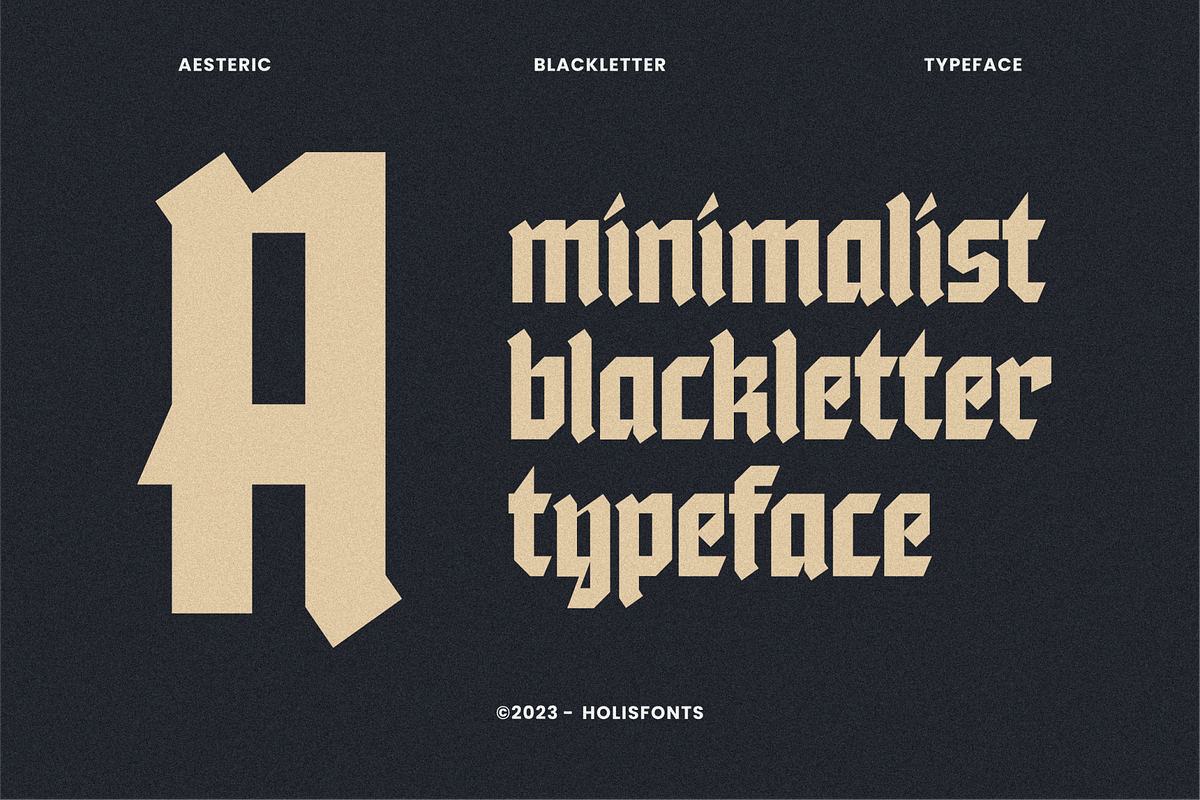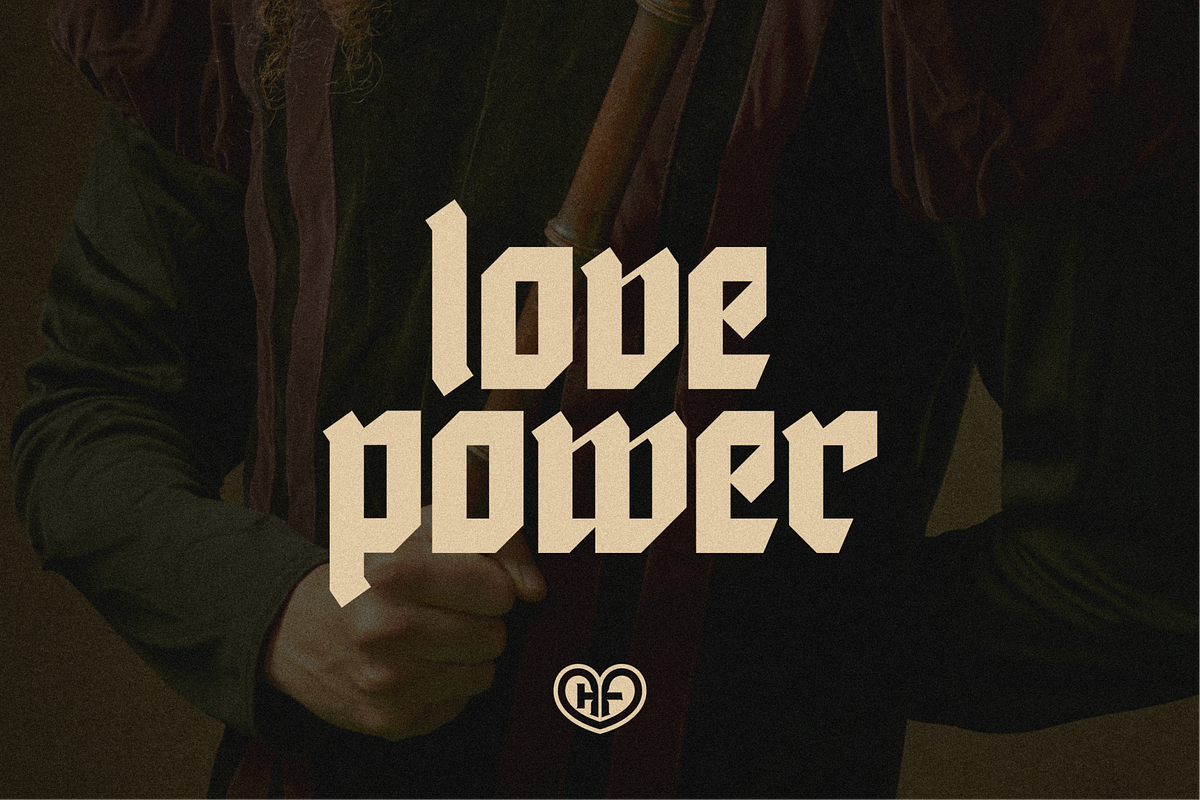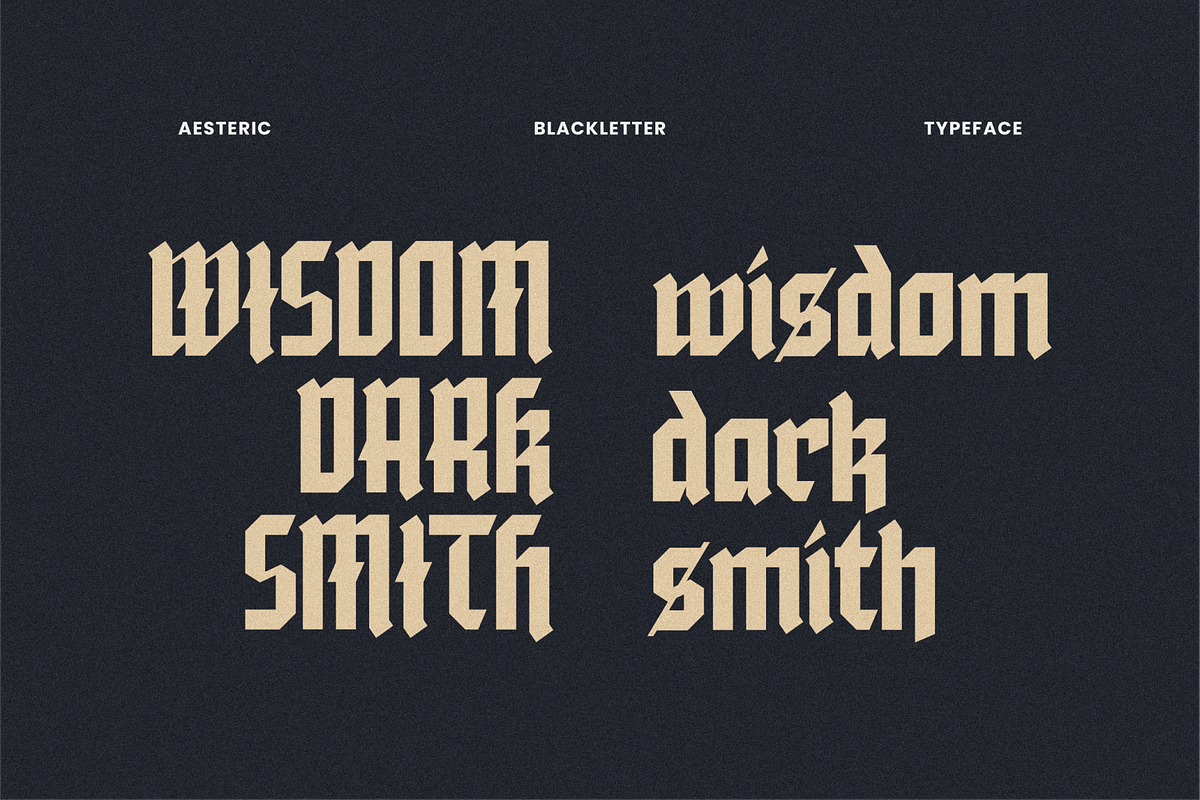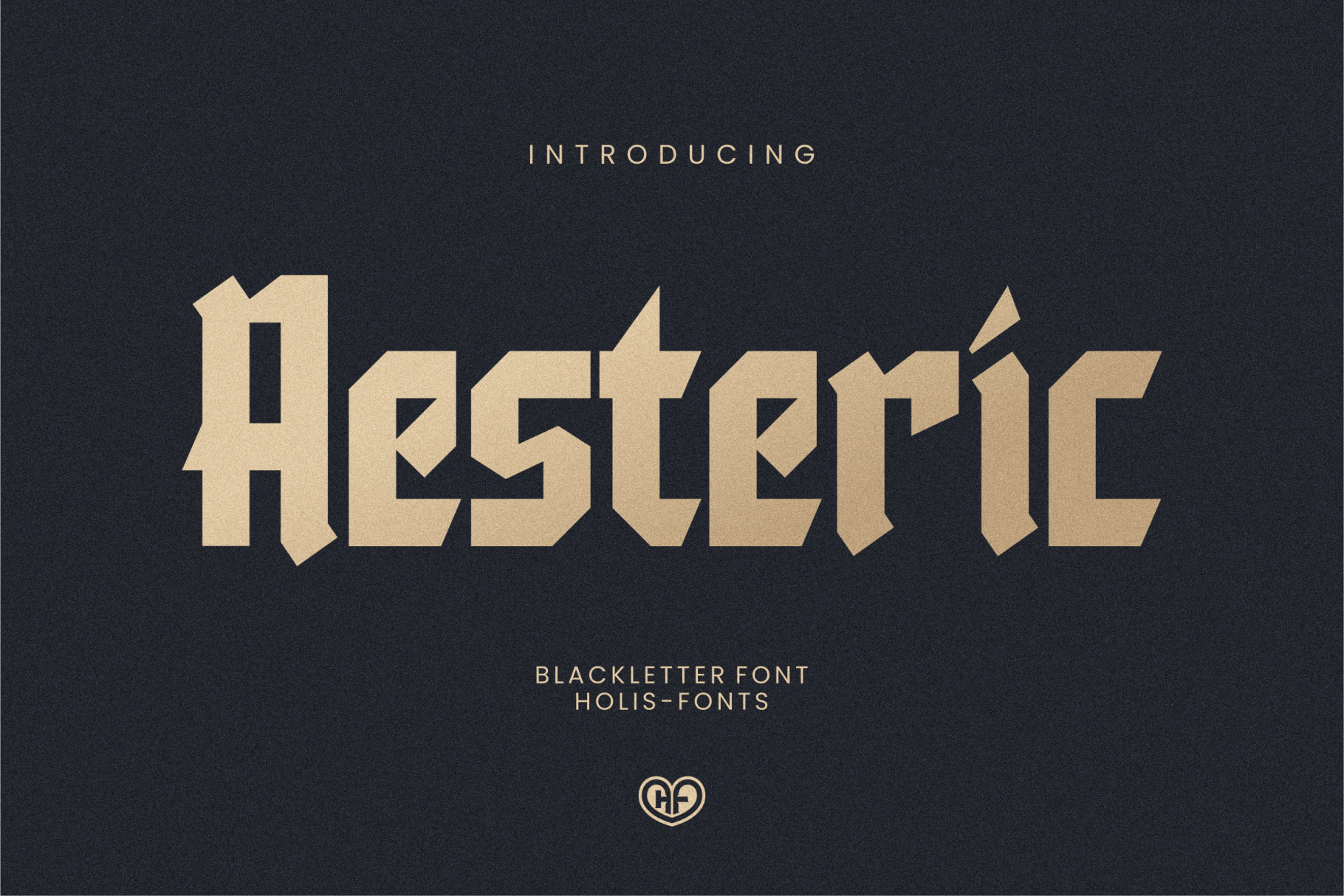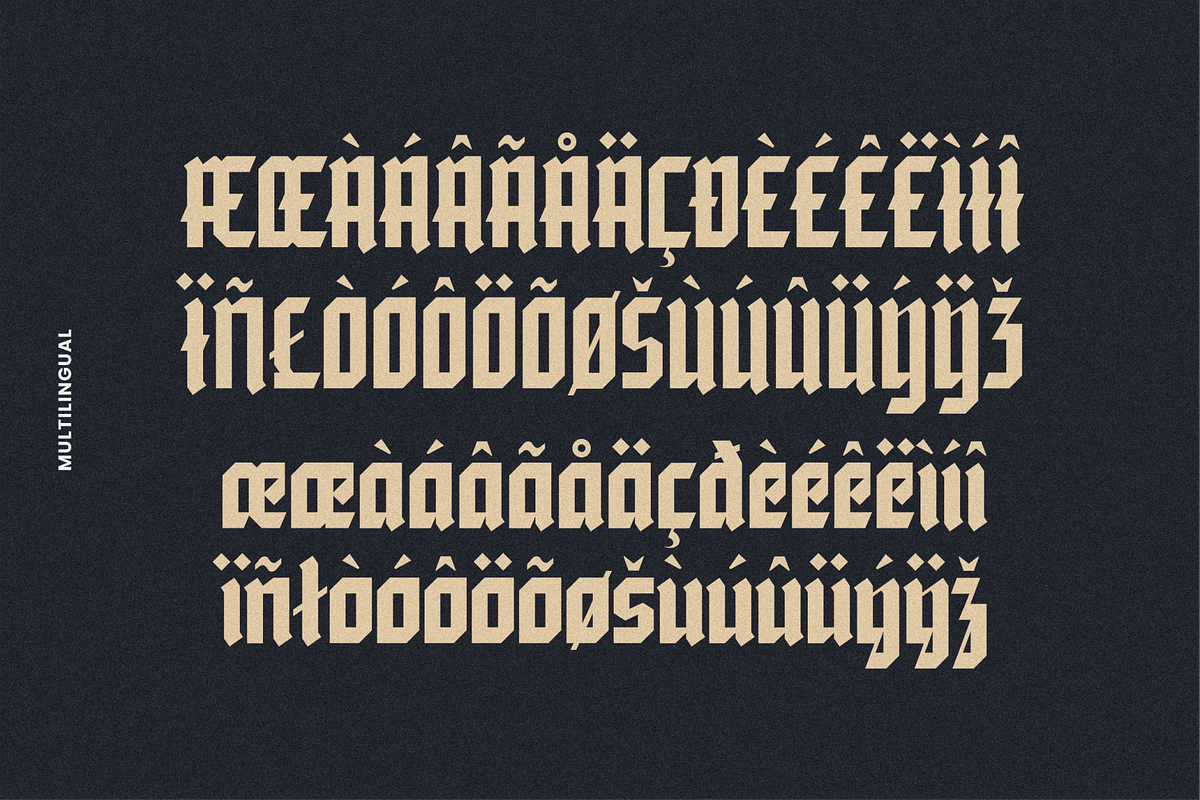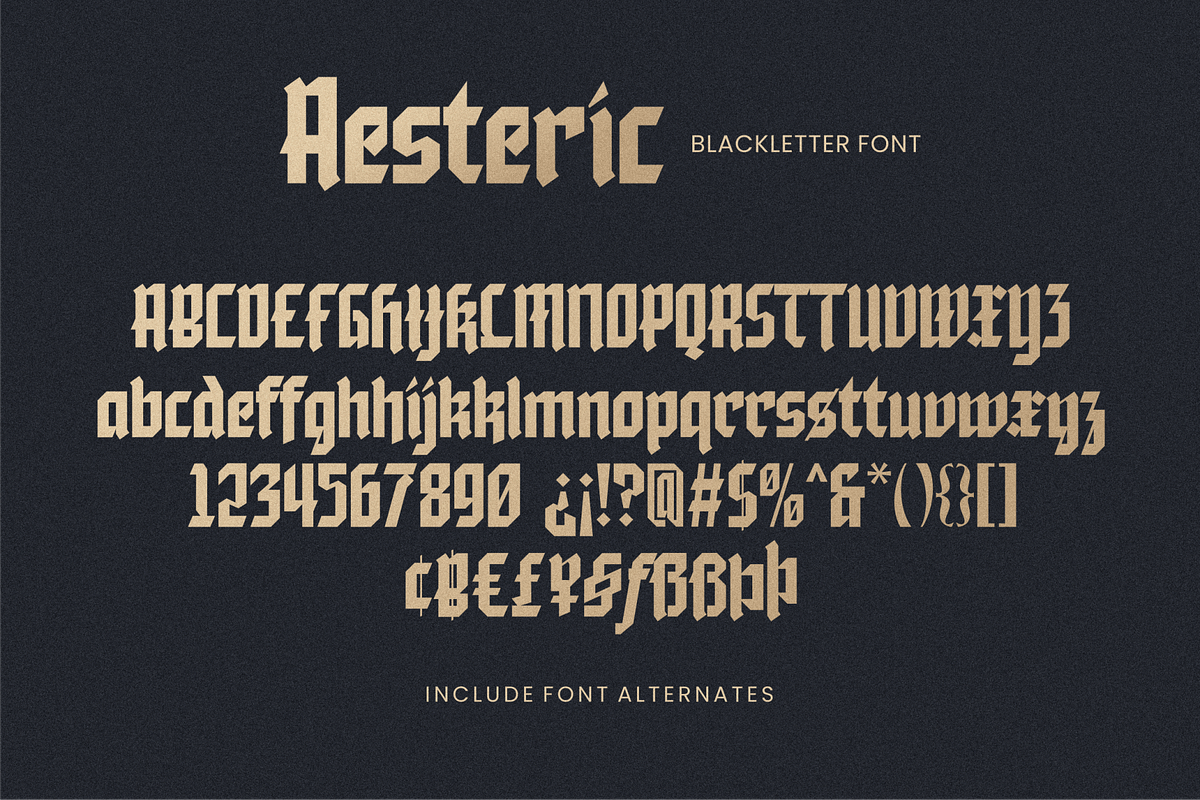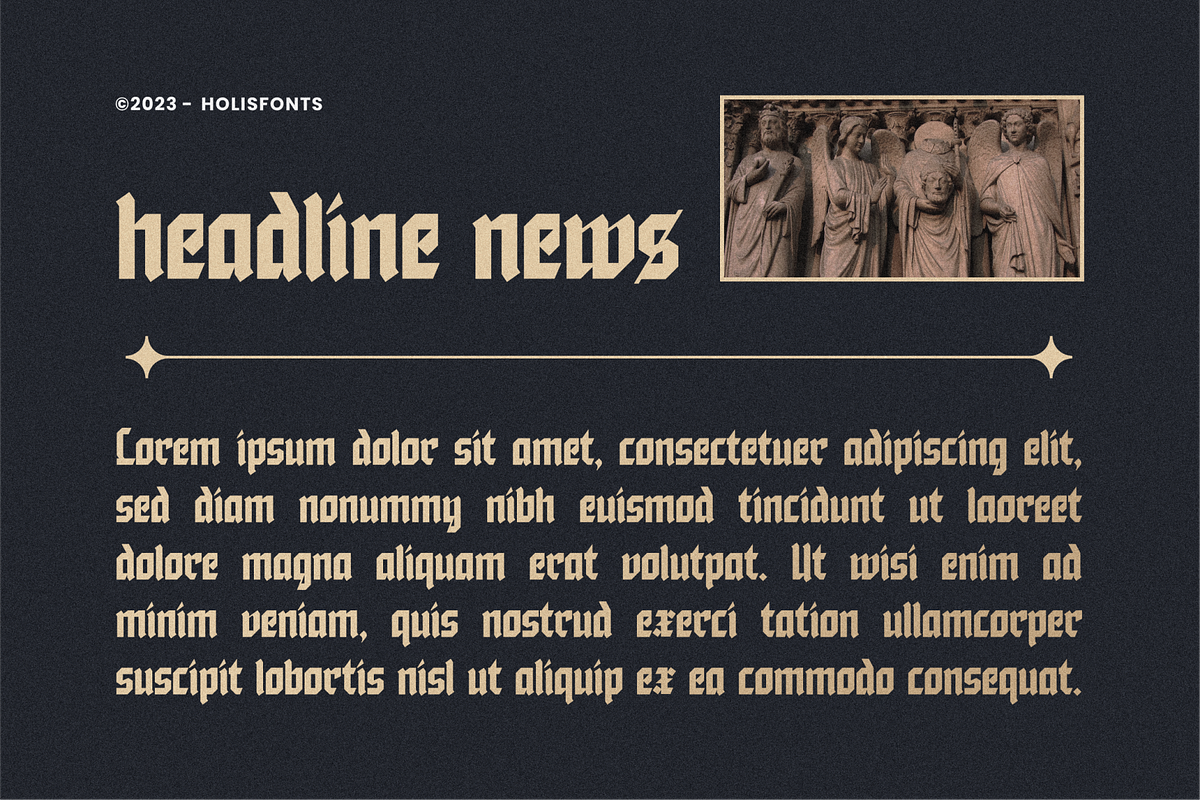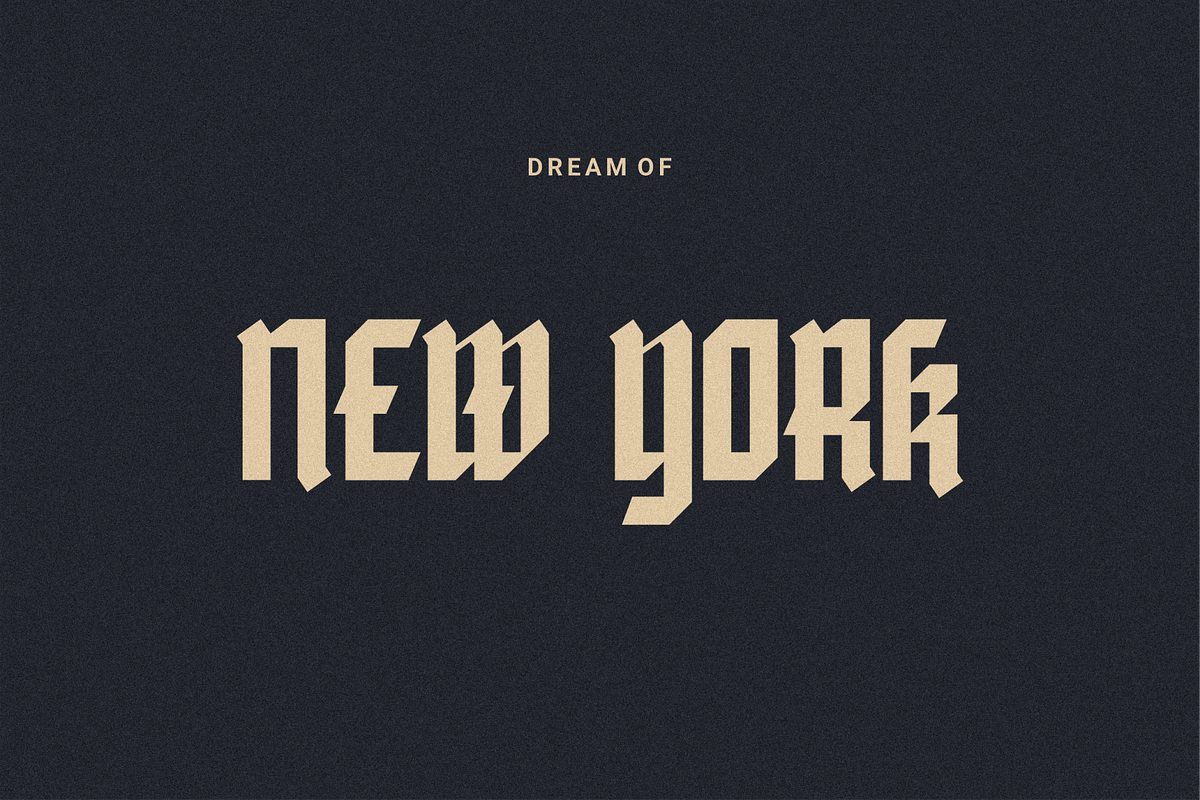
Aesteric Blackletter Gothic Font
Aesteric is a gothic blackletter style font with a dark but minimalist feel with multilingual support and an alternates feature in lowercase letters f, h, k, r, s, t. This font is suitable for use in logo designs, headlines, posters, book titles, film titles, music videos, song album covers, illustrations, etc.
- Lowercase & Uppercase
- Numeral
- Punctuation & Symbols
- 234 Glyphs